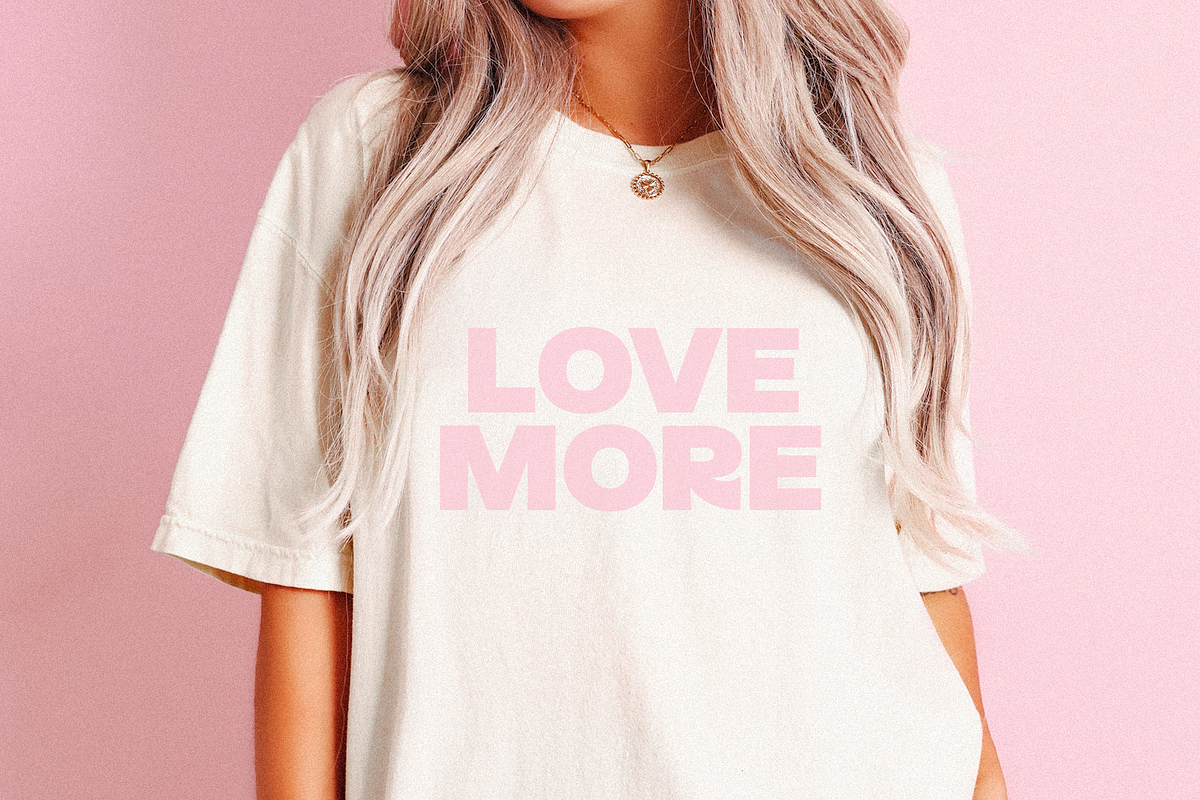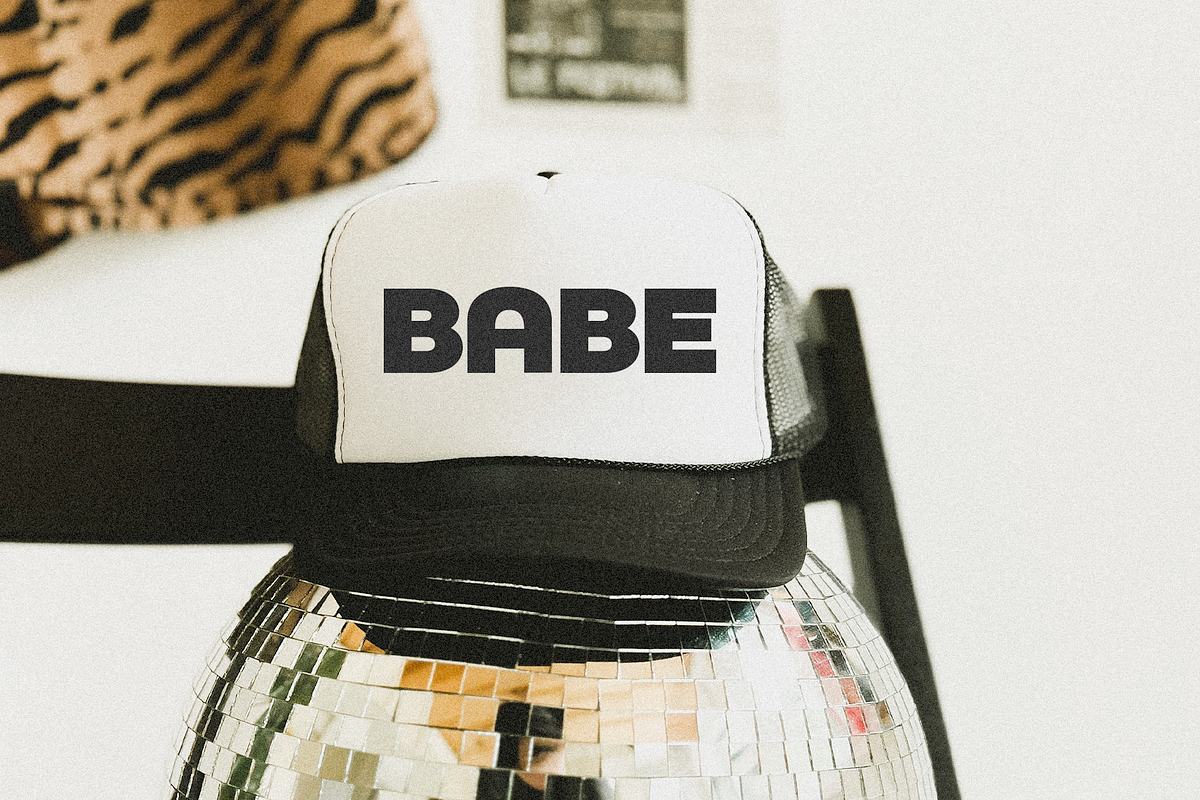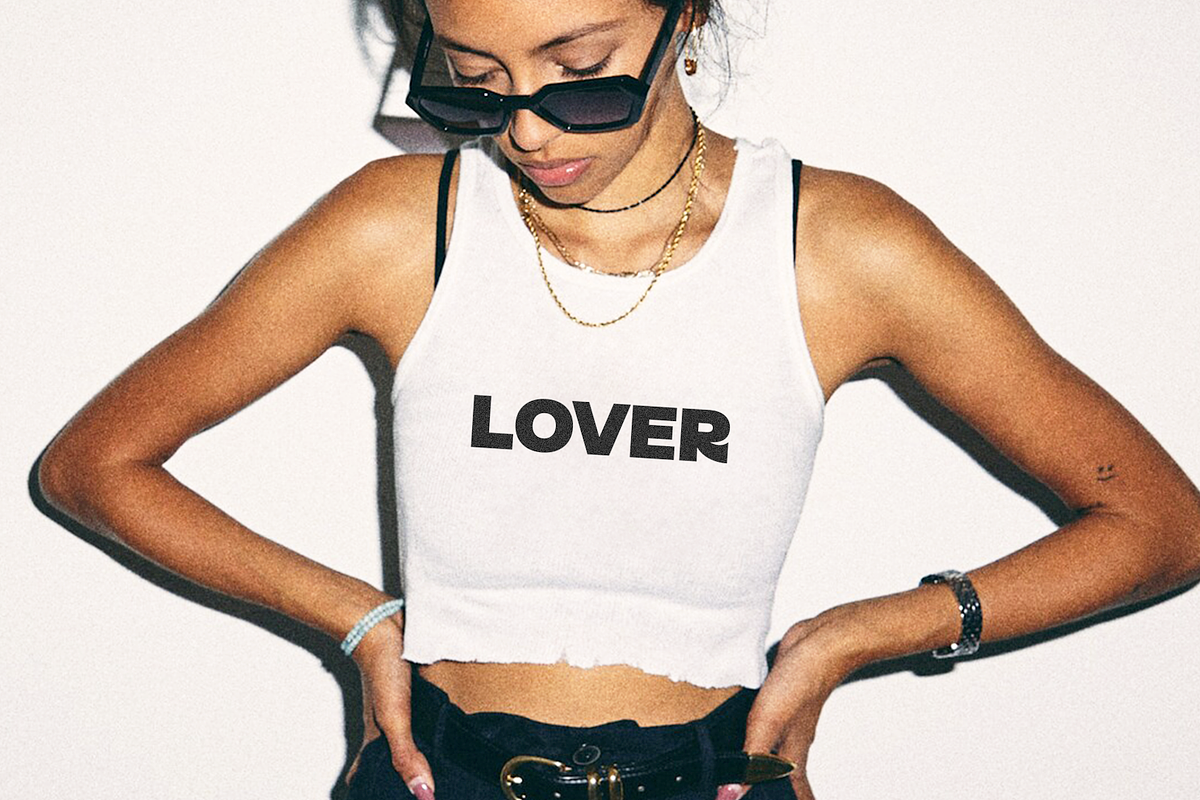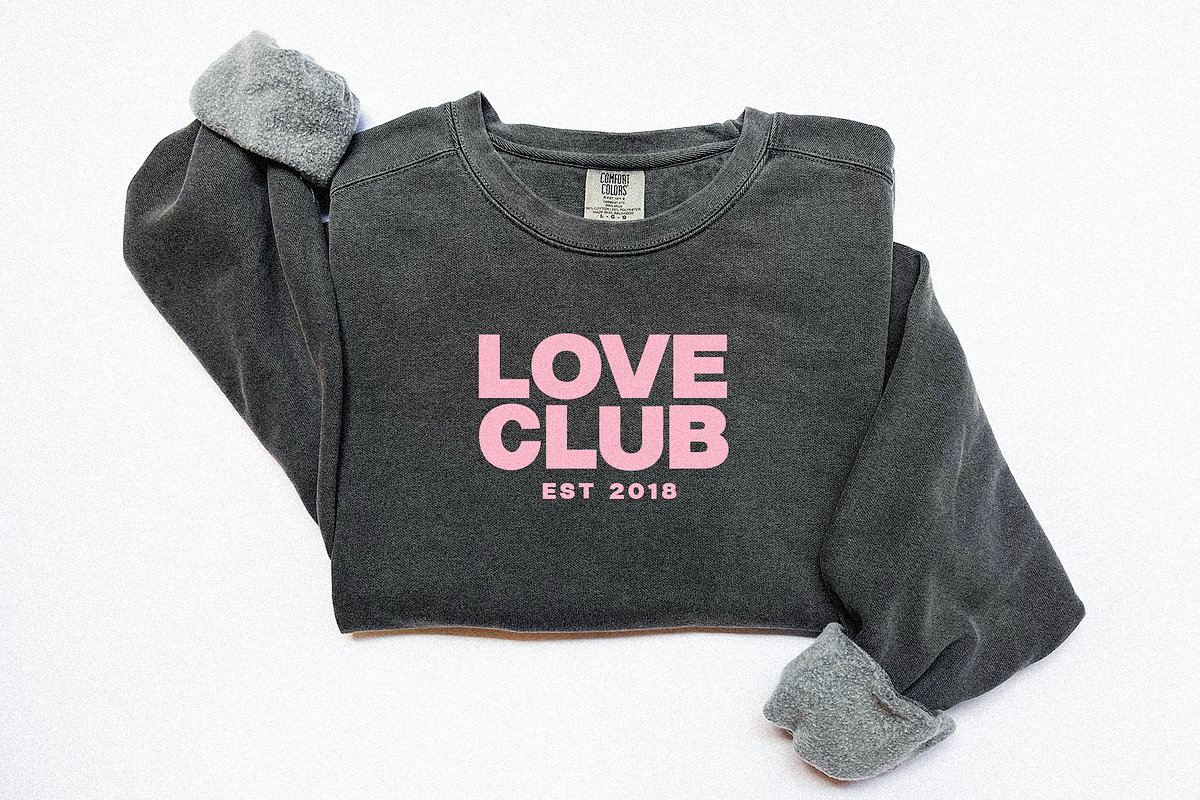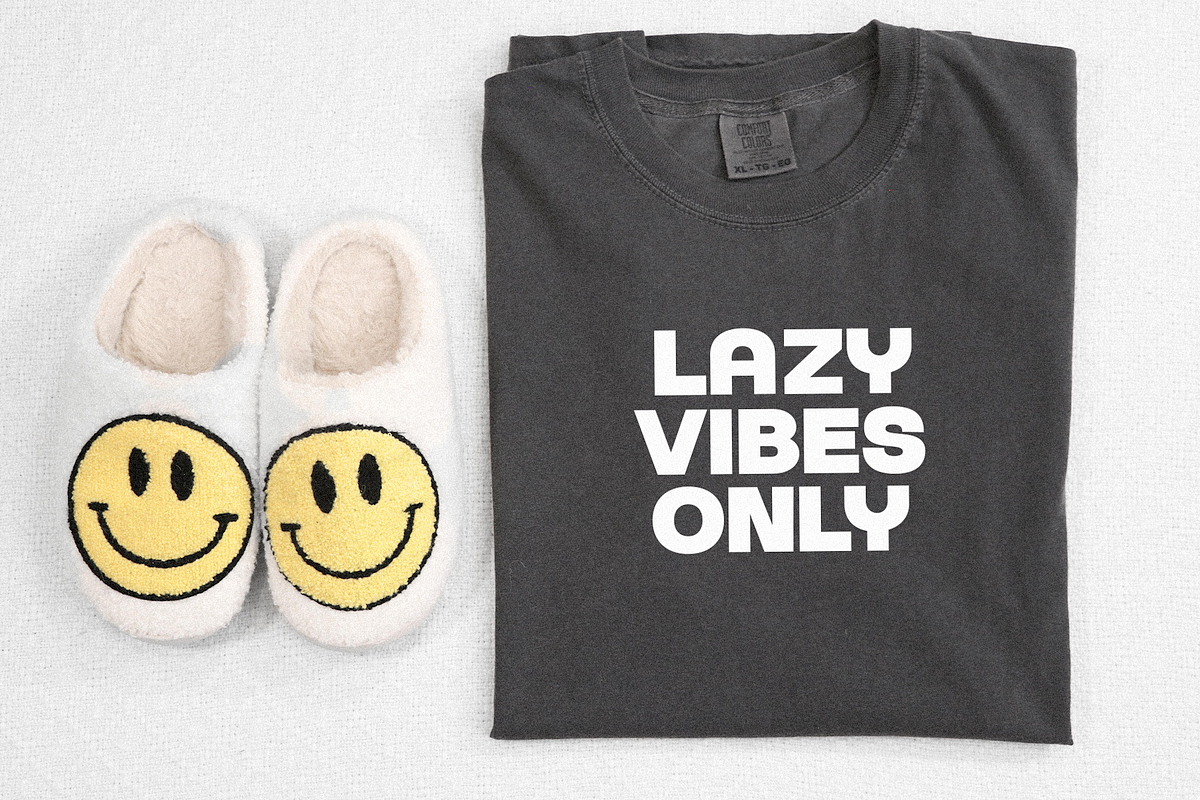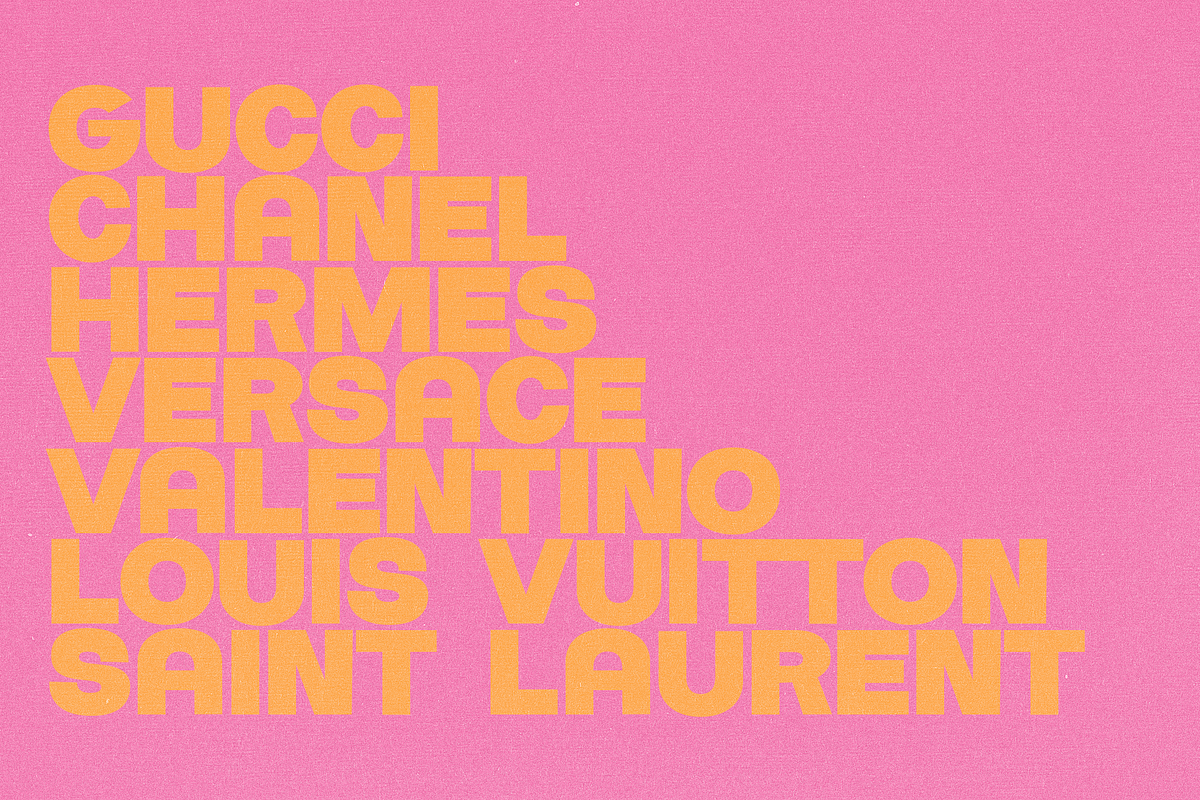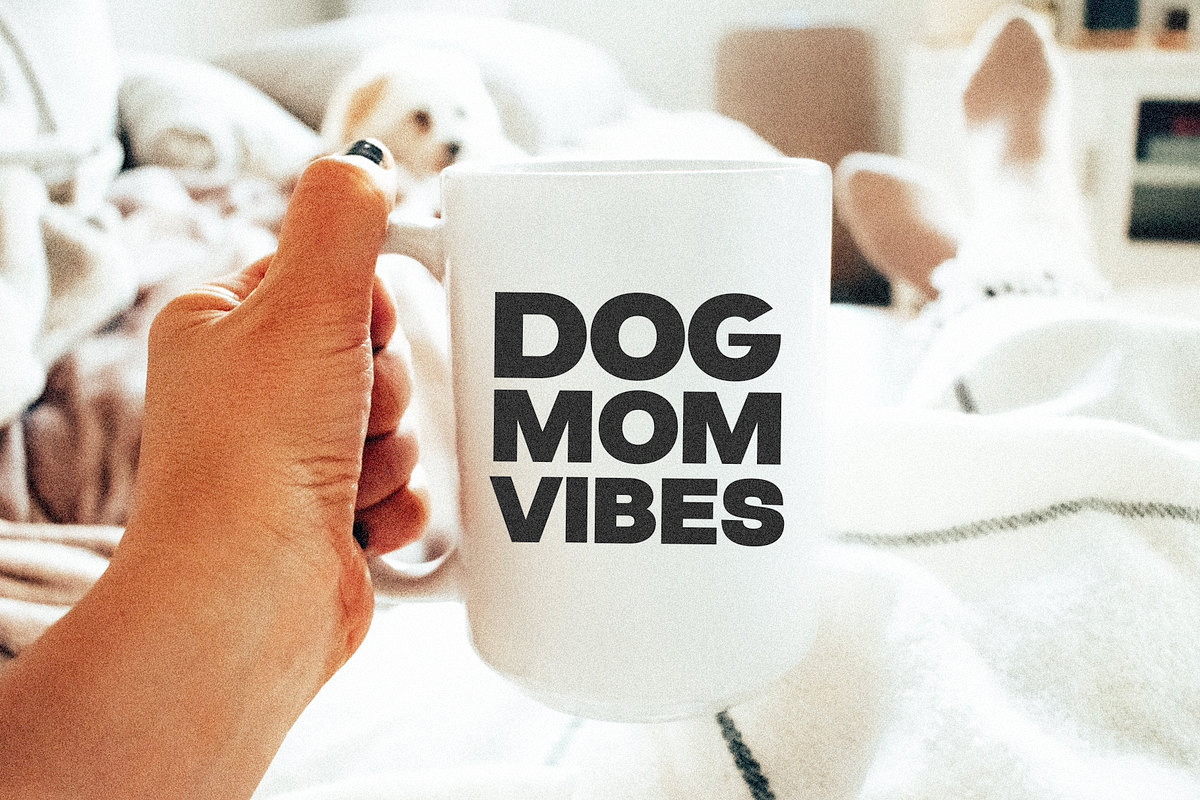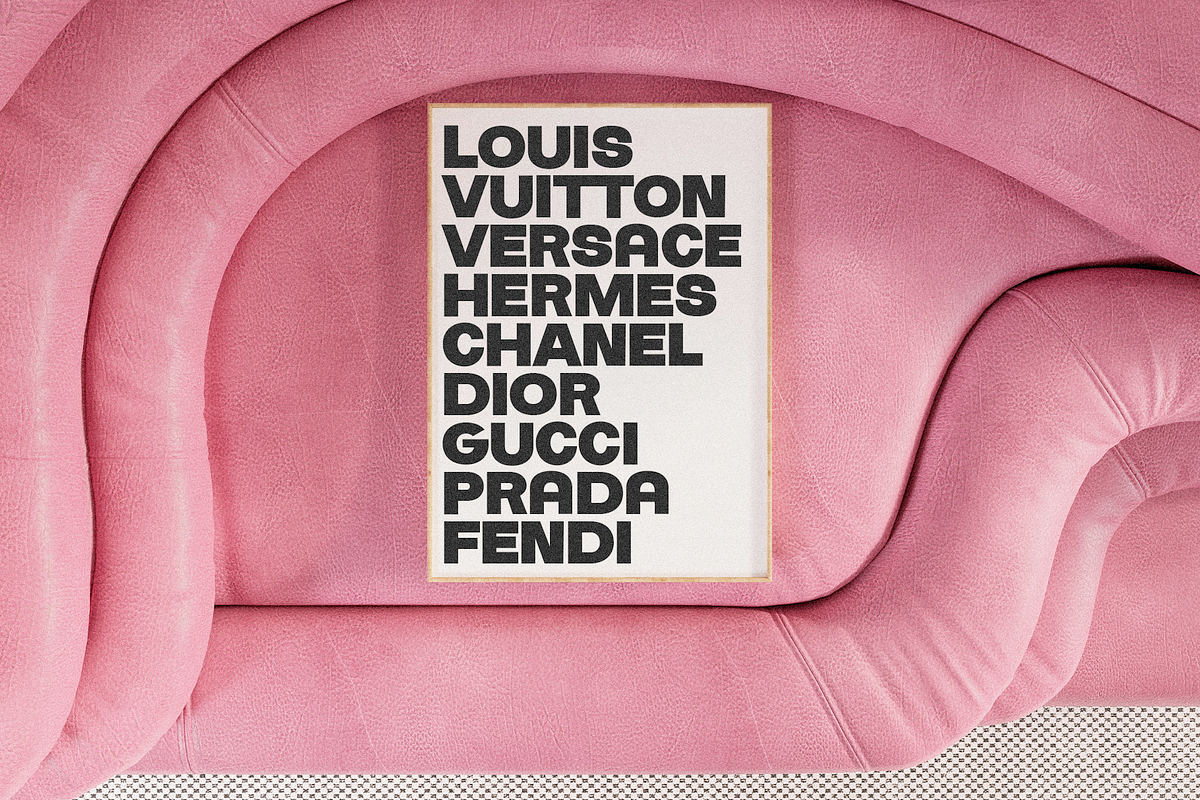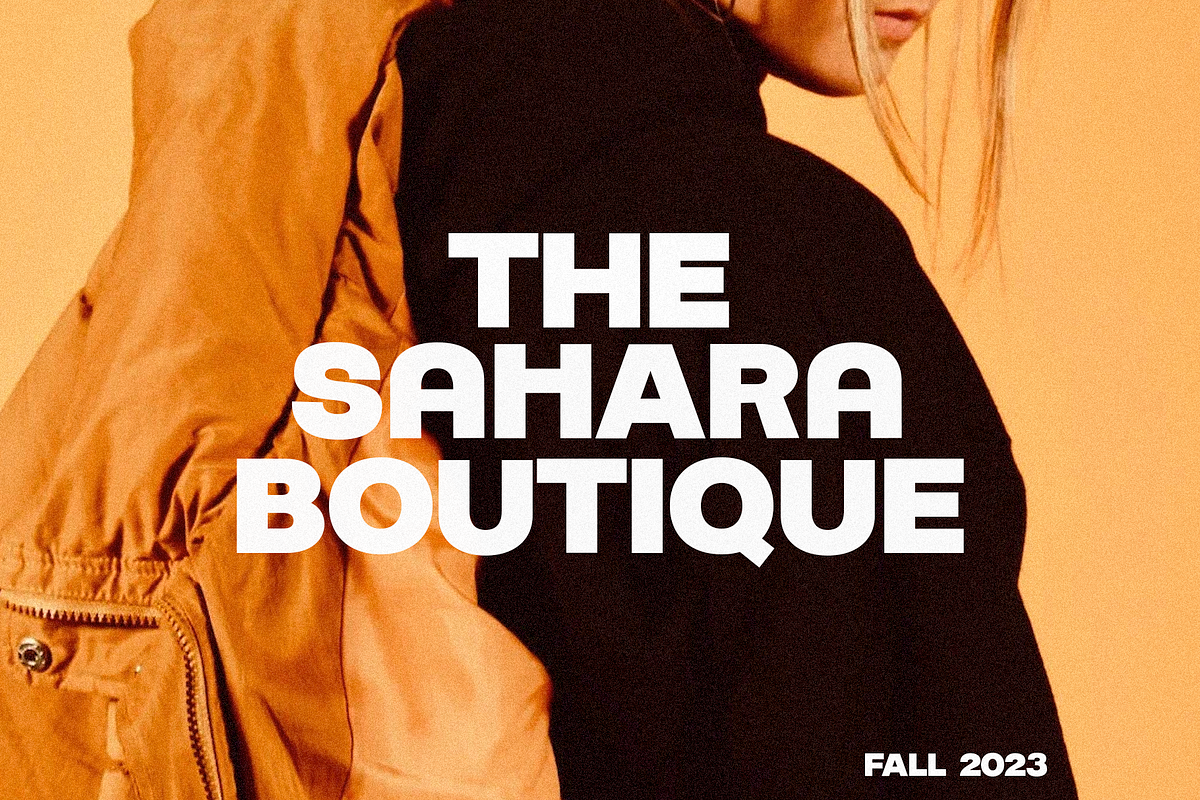
The Vibes | Bold Sans Font
The Vibes is a modern, bold sans font.
This font is perfect for logos, shirts, branding, packaging, quotes, social media, crafts, stickers, svg files and more!